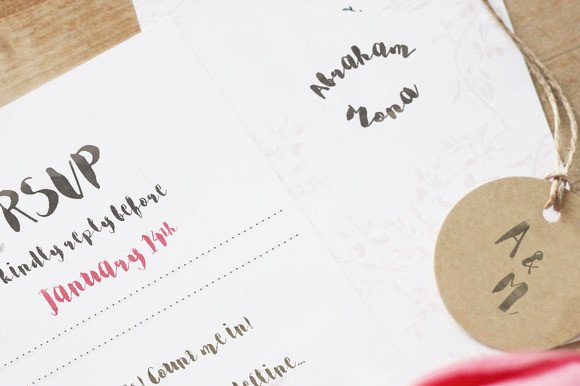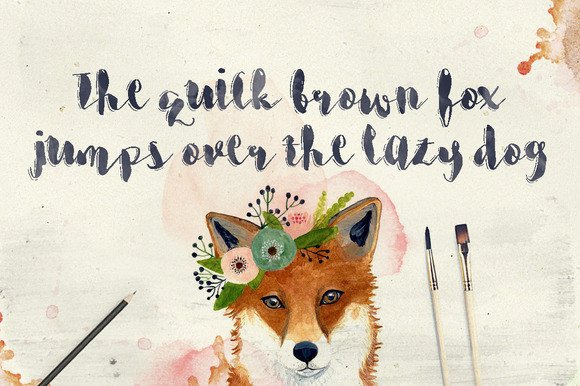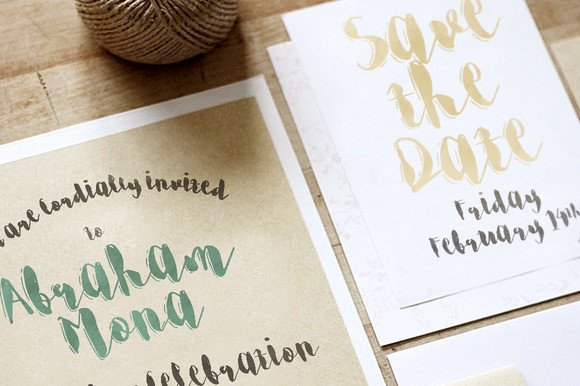
Margot & Margery Font
About Margot & Margery Font
Margot & Margery, a new style of brush typeface that mixes script font with lines.
There are two types, the regular one and the outline, you can combine both fonts for titles and texts.
Margot & Margery is also great for: wedding invites, birthday cards and greetings, illustration titles, posters, return addresses, signatures, branding work and tons more.